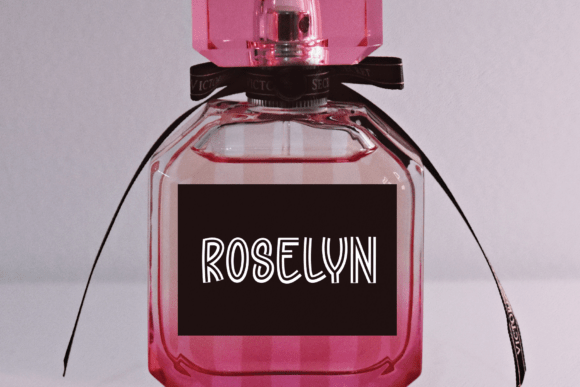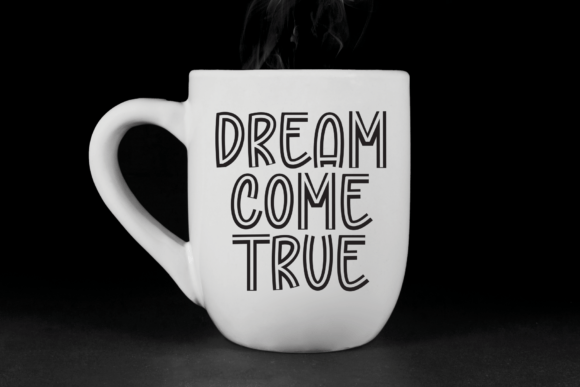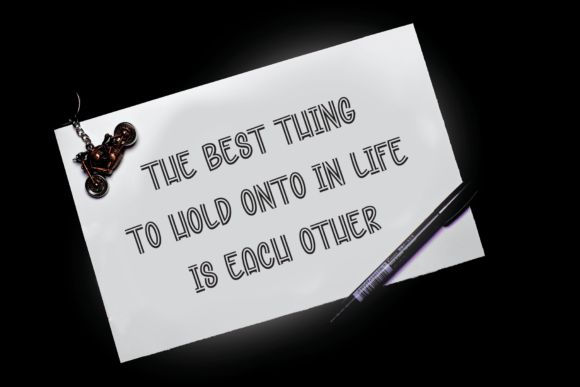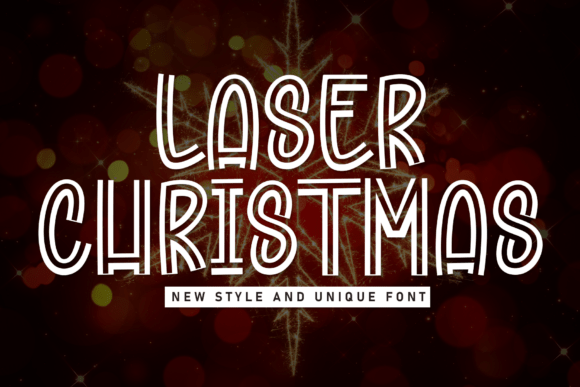
Introduction to Laser Christmas Font
Light up the holiday season with Laser Christmas, a new style and unique font designed to bring a high-tech, contemporary twist to classic celebrations.
This display typeface features a striking multi-line β€œinline” aesthetic, creating a visual effect that mimics neon lights, fiber optics, or intricate laser-etched designs The strength of Laser Christmas is its vibrant verticality and clean geometry.